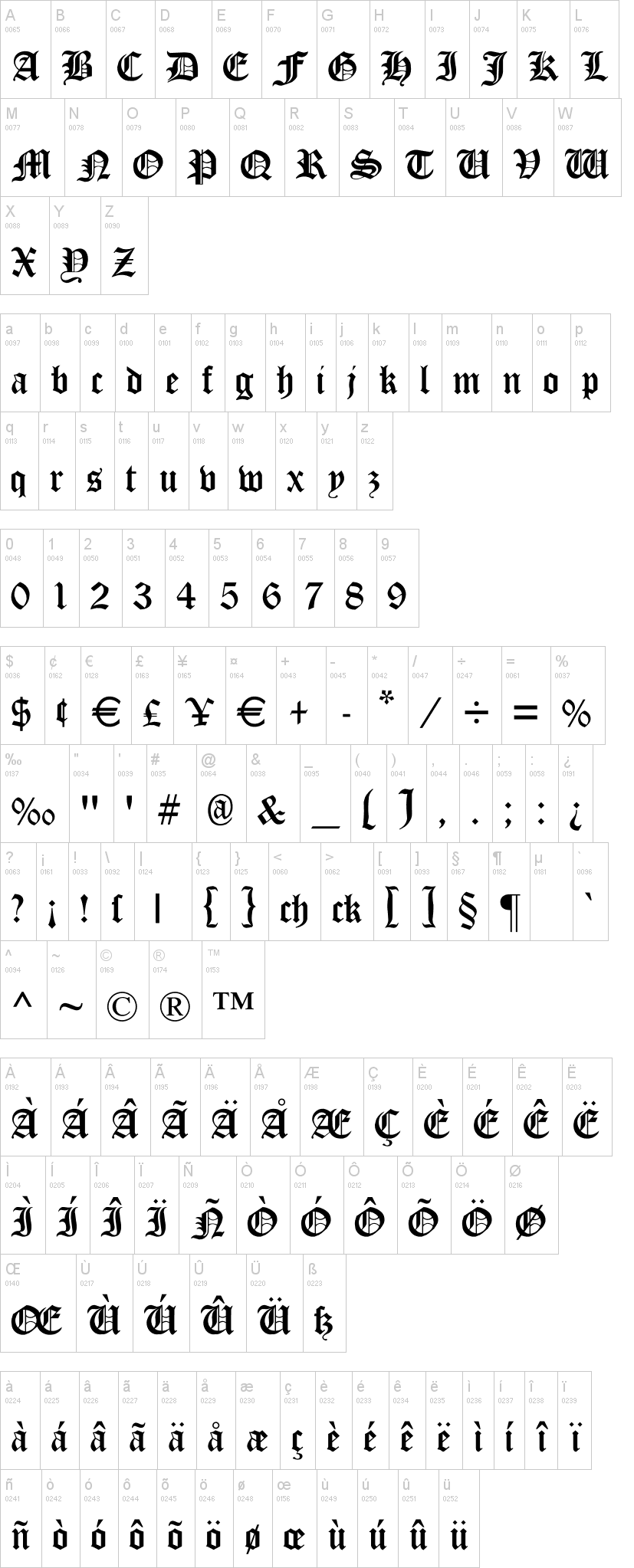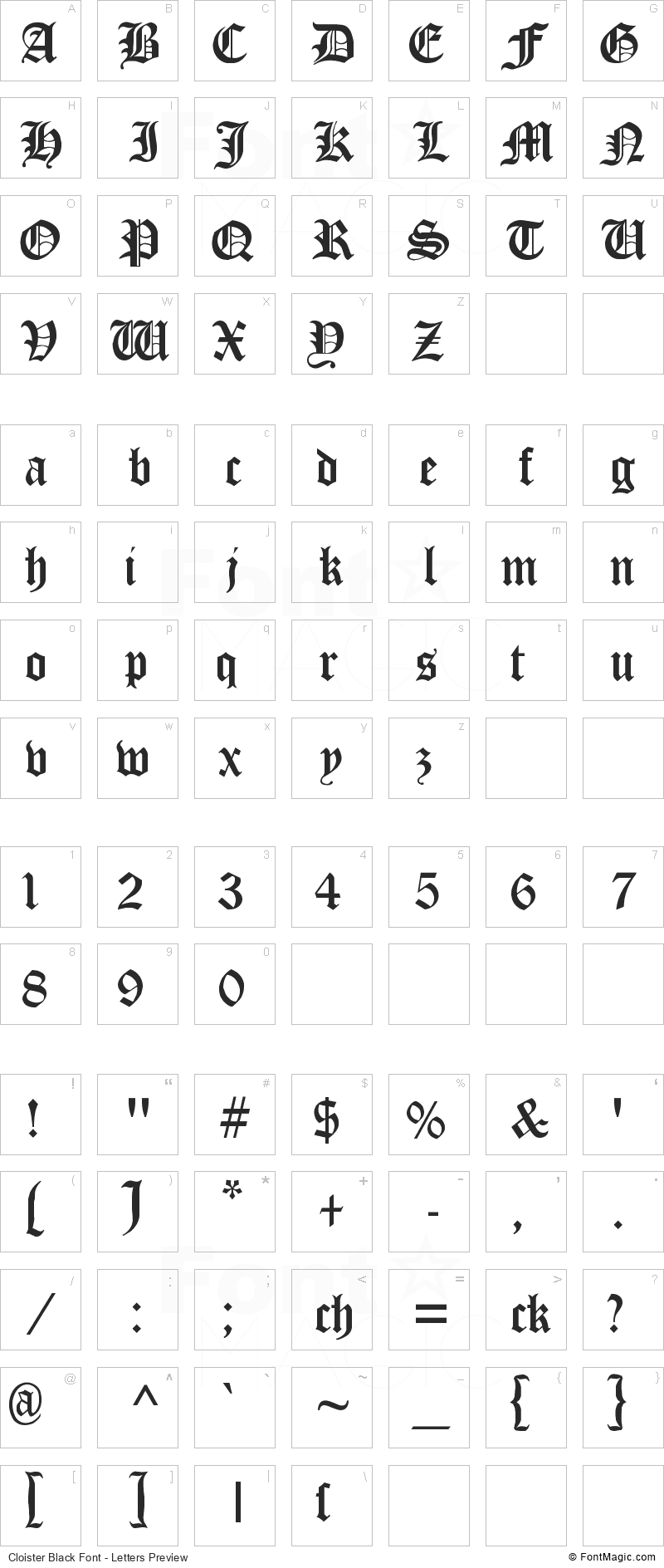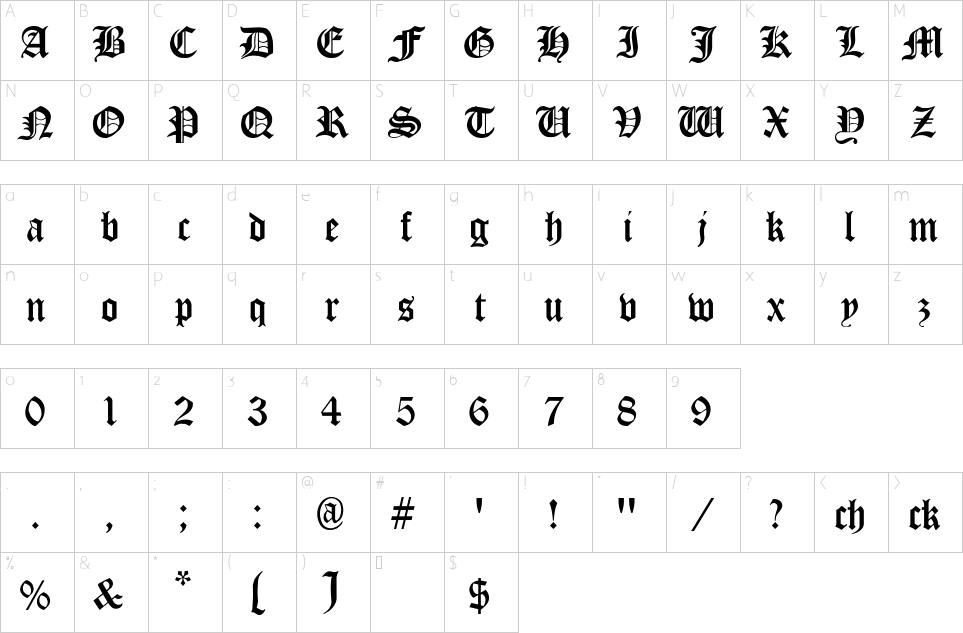
Cloister Black Font
Identifont Cloister Black
Cloister Black Font
The cloister black font has been downloaded 360,015 times. New fonts | top fonts | submit a font | font designers |. Discover and customize the font cloister black and other similar fonts, ready to. 4,364,836 downloads (708 yesterday) 22 comments 100% free. Download free for commercial use.
Cloister Black Font FontSpace
4,364,836 downloads (708 yesterday) 22 comments 100% free. We present our fonts based on the medieval age, prepared for your best text. Download free for commercial use. Web download the cloister black font by dieter steffmann. Cloister black à € by dieter steffmann.
Cloister Black Font Dafont Free
We present our fonts based on the medieval age, prepared for your best text. 4,424,020 downloads (610 yesterday) 23 comments 100% free. The cloister black font has been downloaded 360,015 times. Cloister black à € by dieter steffmann. Cloister black à € by dieter steffmann.
Cloister Black Font FREE Download & Similar Fonts FontGet
Discover and customize the font cloister black and other similar fonts, ready to. Web download the cloister black font by dieter steffmann. New fonts | top fonts | submit a font | font designers |. Cloister black à € by dieter steffmann. 4,364,836 downloads (708 yesterday) 22 comments 100% free.